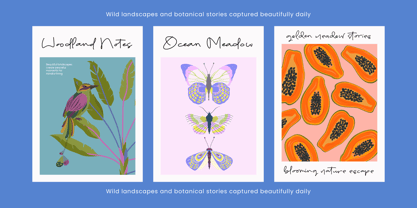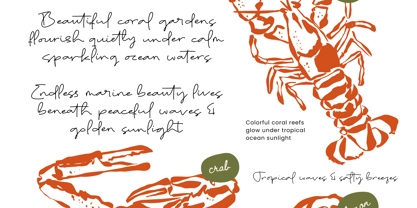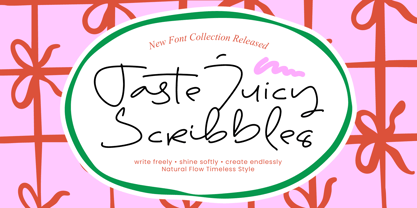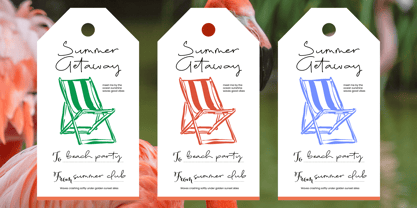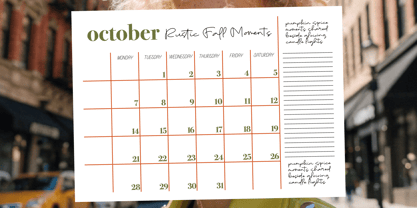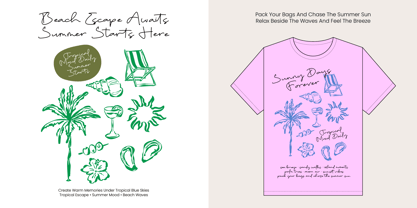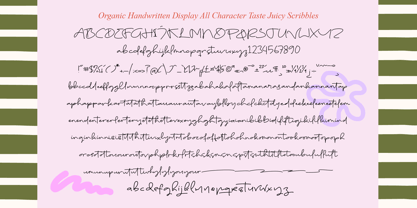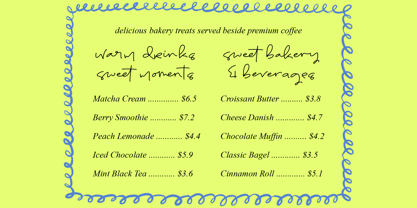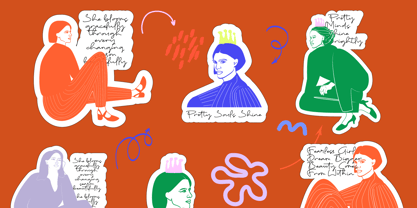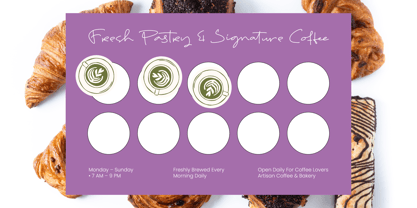
Taste Juicy Scribbles
Die Schriftfamilie Taste Juicy Scribbles wurde von Heru Utama Putra entworfen und von Stylishtype Studio veröffentlicht. Taste Juicy Scribbles enthält 2 Stile und Familienpaketoptionen. Mehr über diese Familie
Taste Juicy Scribbles - Organic Handwritten Display captures the raw, spontaneous energy of ink on paper, offering a playful aesthetic that is both modern and timeless. This organic handwritten display font is meticulously crafted to bring handcrafted charm and a high level of personalization to your visual storytelling, ensuring your message feels intimate and engaging.
Global reach meets a distinct personal connection through professional-grade engineering. With its extensive multilingual support, Taste Juicy Scribbles - Organic Handwritten Display adapts seamlessly across global markets, making it incredibly versatile for international projects. This robust character set ensures that your brand’s personality remains consistent and impactful across different languages, providing a universal appeal that is essential for modern, cross-border digital campaigns.